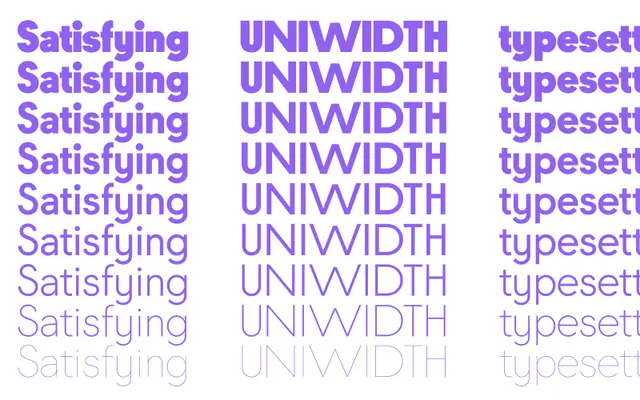
Gatch
A geometric sans by David Einwaller that pairs Futura-derived principles with a uni-width system and variable uppercase width axes across nine weights.
Designed between 2017 and 2023, Gatch draws on Futura and Neuzeit Grotesk while introducing deliberate tension between circular and narrow glyph proportions, taking cues from Joseph Churchward's Crossbred. Its uni-width system keeps letter spacing consistent across the weight range, making it practical for UI and display work where layout stability matters. A variable font adds three axes controlling the width of straights, rounds and diagonals in uppercase letters independently, alongside a broad set of stylistic alternates.
A geometric sans-serif in the tradition of Futura and Neuzeit Grotesk, distinguished by tension between full-round and narrow glyph proportions and a uni-width system across nine weights.